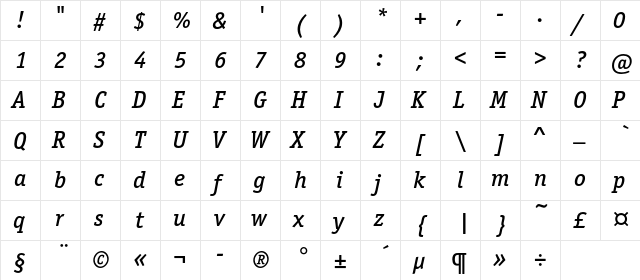
OfficinaSerifMediumC Italic
Design Context for OfficinaSerifMediumC Typeface
OfficinaSerifMediumC brings classic typographic sensibility to the table — its serifs and measured letterforms reflect centuries of print heritage. The slanted form adds forward momentum and visual energy.